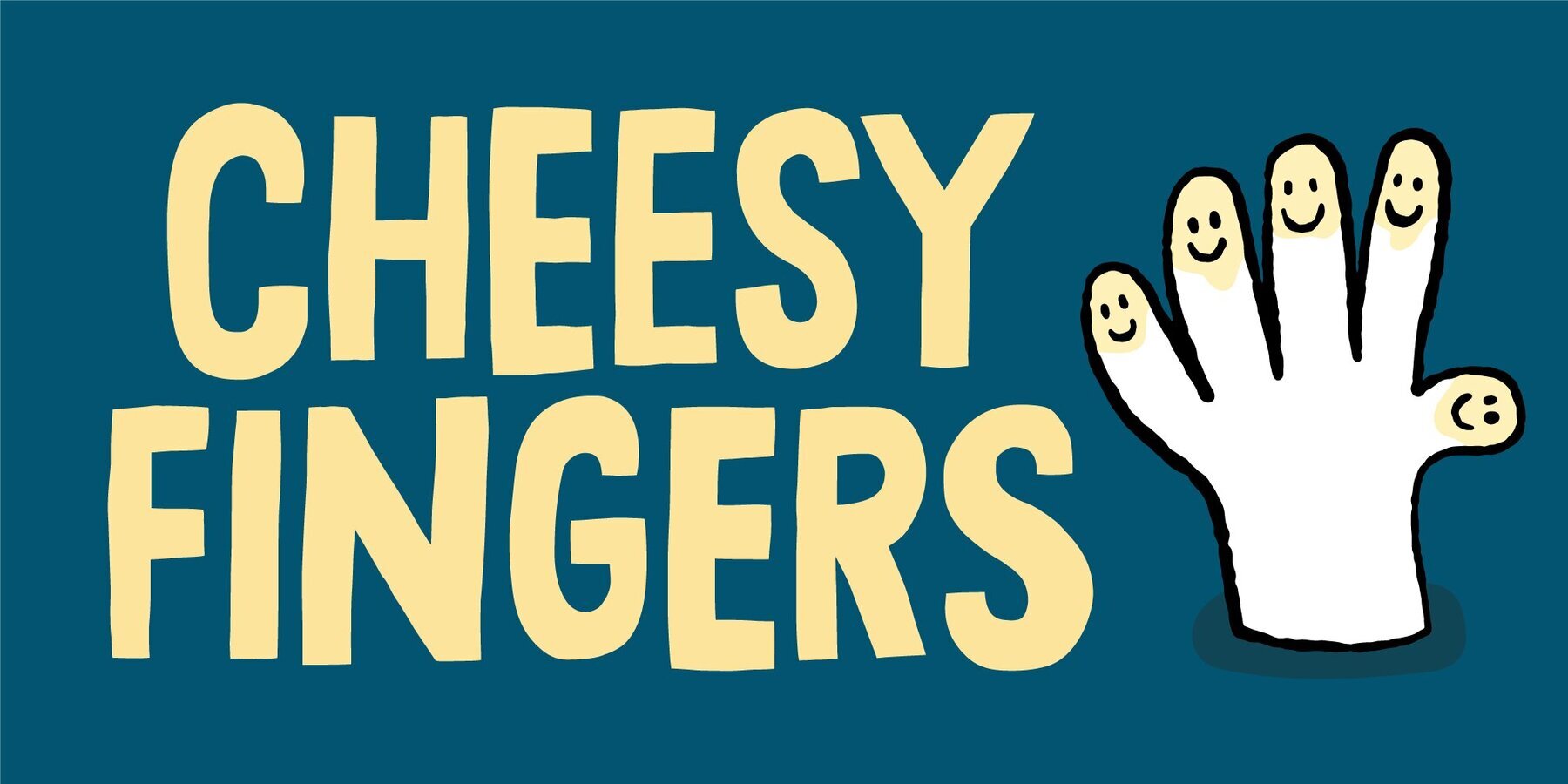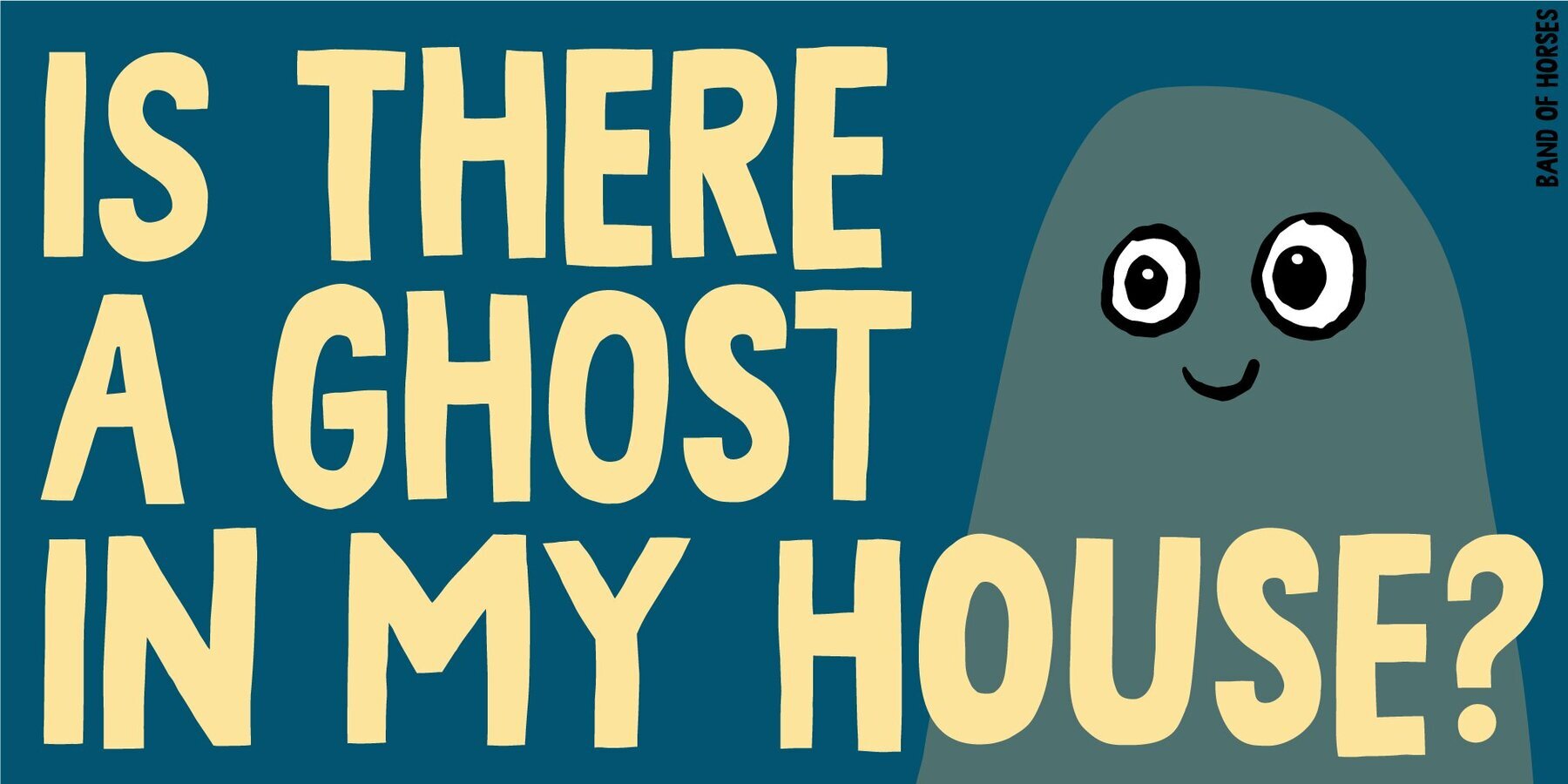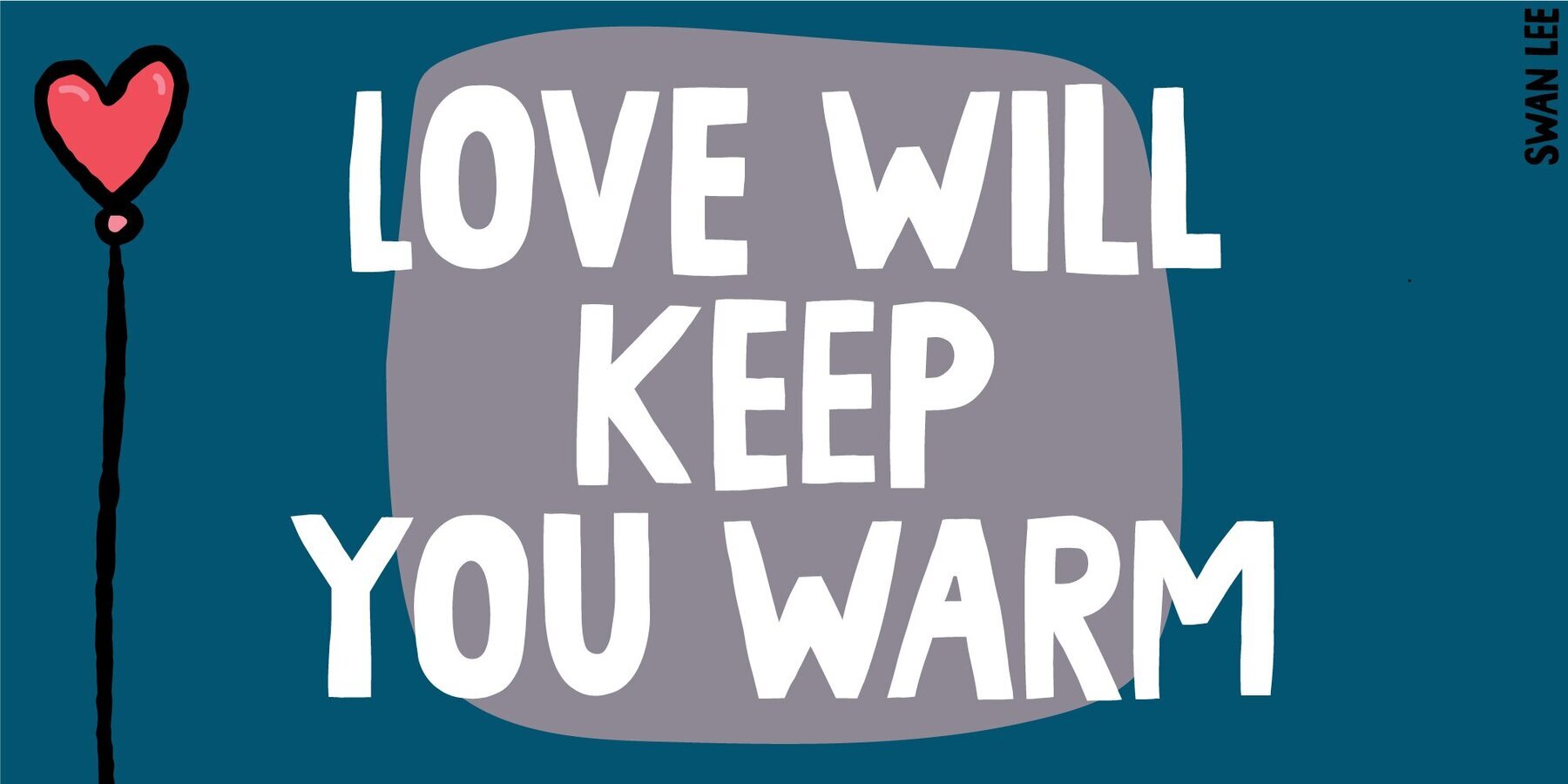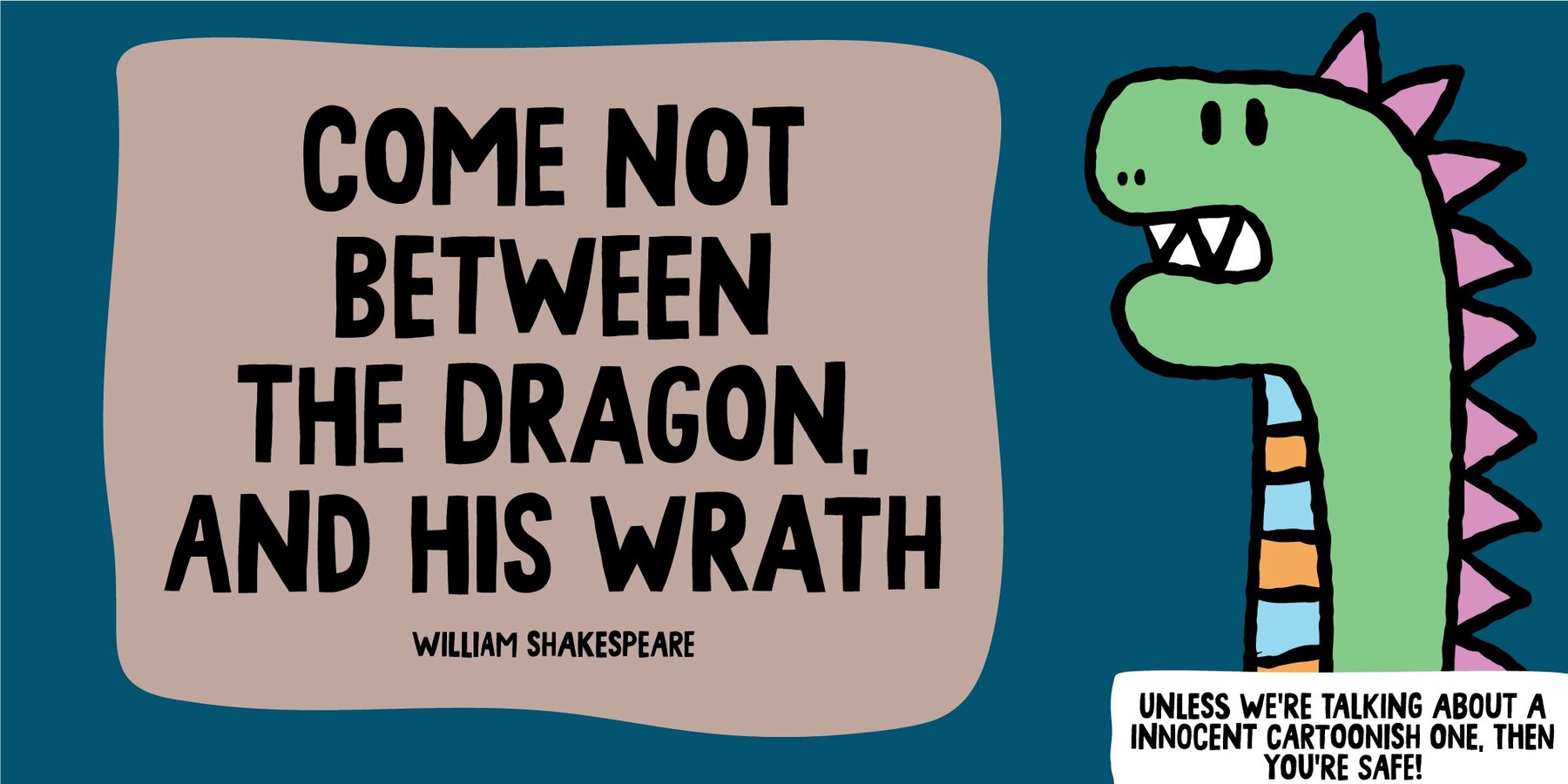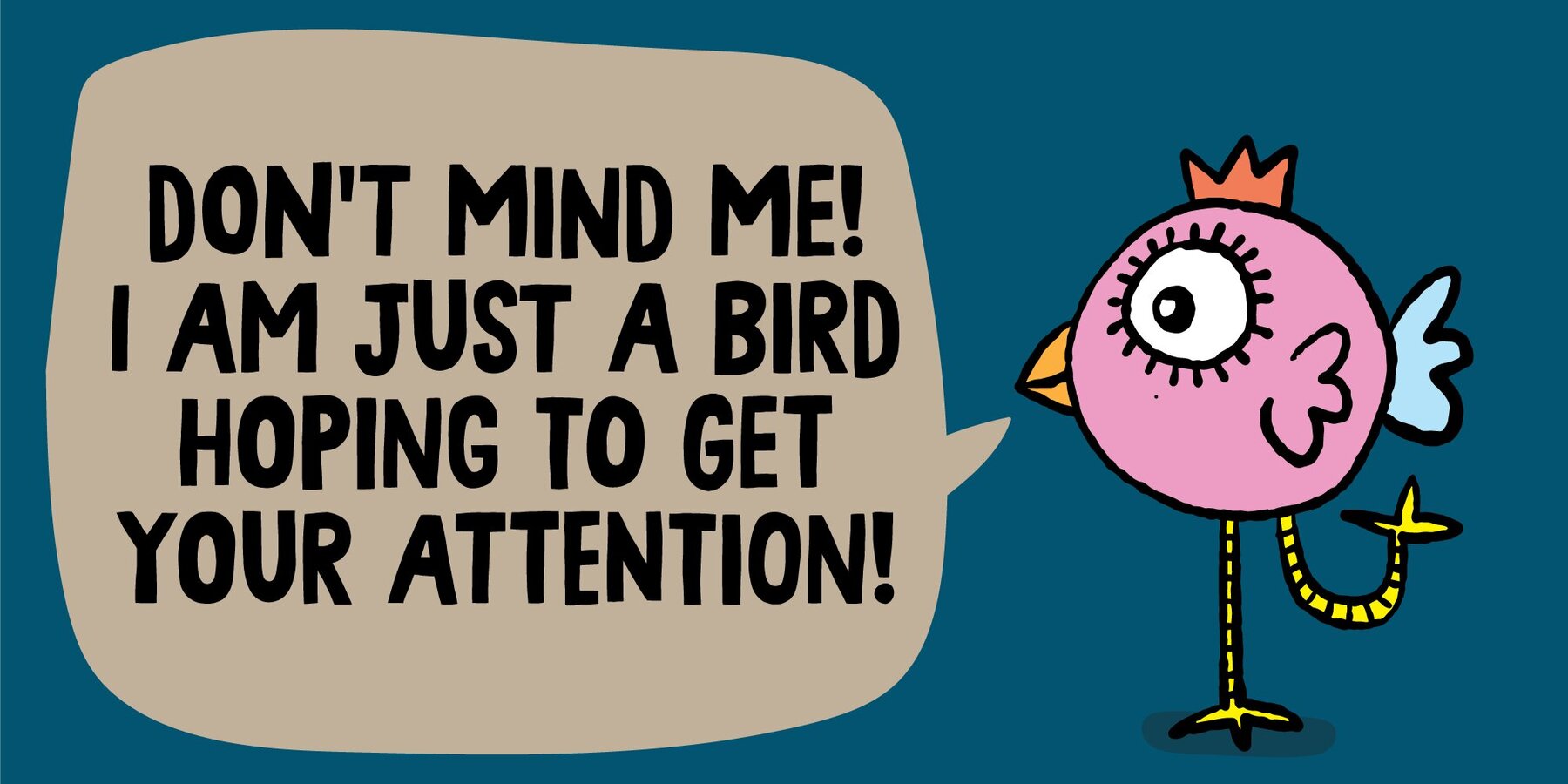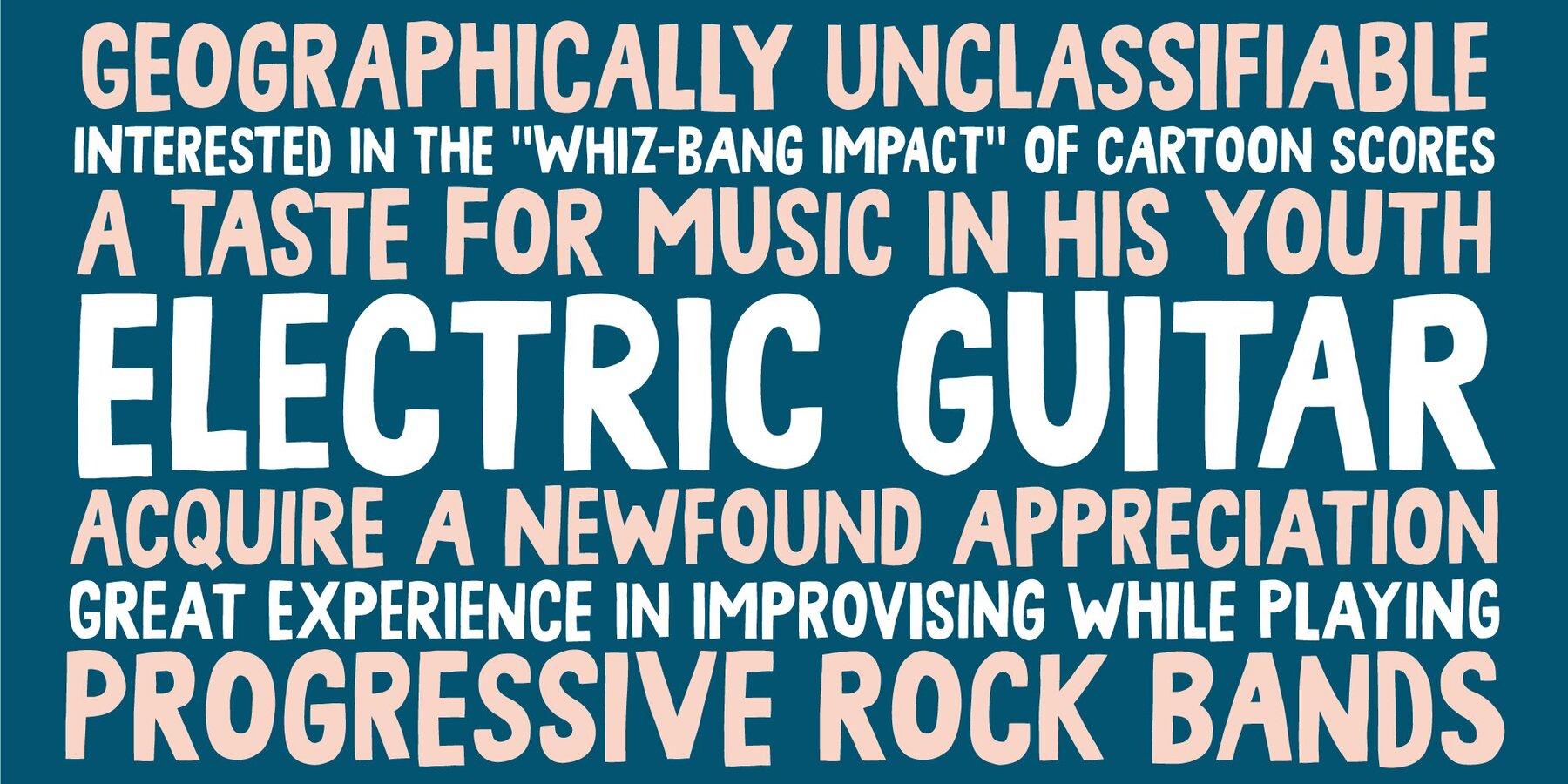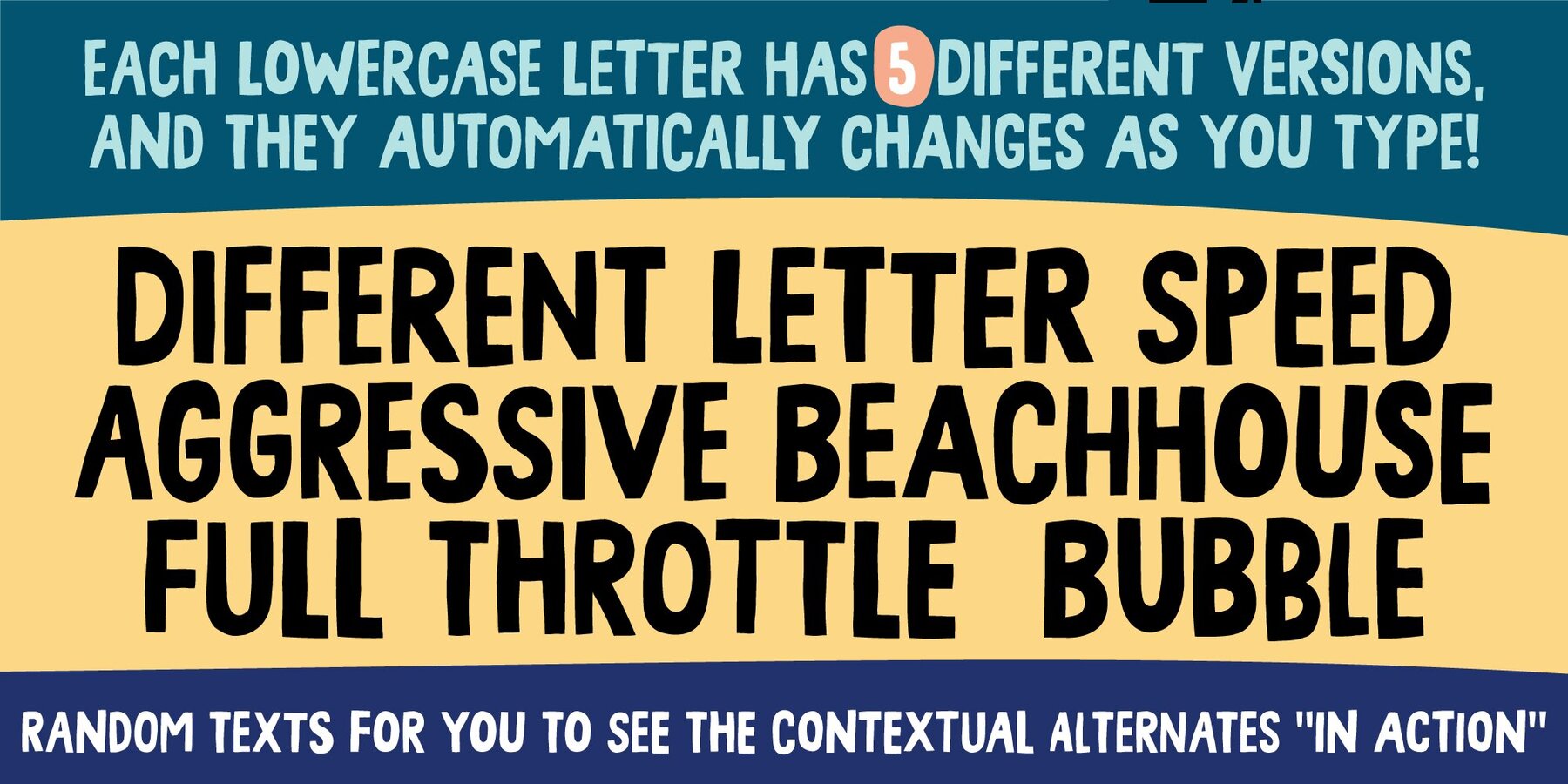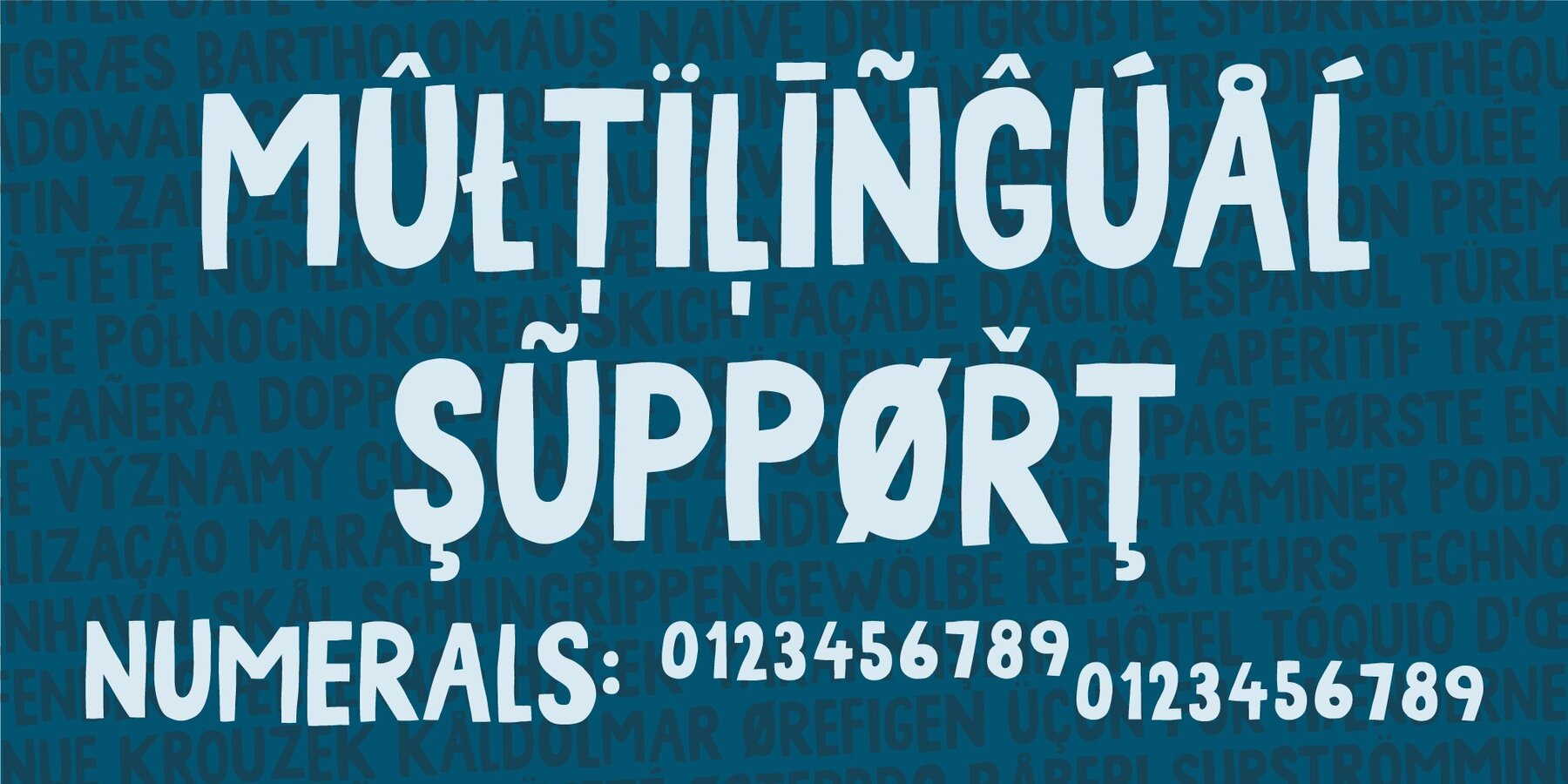
Cheesy Fingers Font
Sometimes the way forward is simplicity. That goes for your personal life as well as designing. Sometimes what catches the eye is something simple. My Comforting Sounds font is a handmade sans serif font. It has a crunchy line, an organic look and legibility even at very small sizes. And in a charming way, it is quite simple!